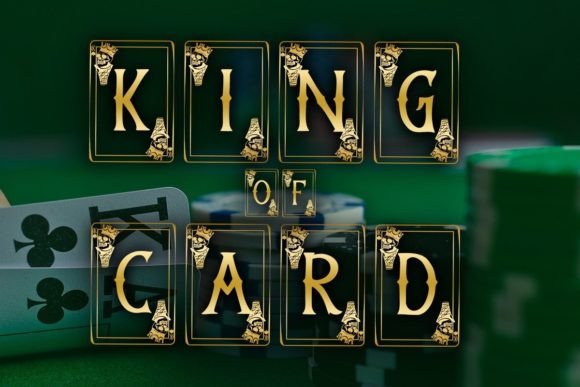
Introducing the King of Card Font: Elevate Your Creative Projects to Royalty
In the realm of typography, few fonts have made a mark as distinct and captivating as the King of Card font. This incredibly unique decorative font has been turning heads and transforming creative projects into authentic pieces of art. If you’re looking to add a touch of royalty to your designs, the King of Card font is an indispensable asset in your creative arsenal.
What Makes King of Card Font Stand Out?
The King of Card font is not just another addition to the vast sea of typefaces. Its uniqueness stems from its intricate design, which combines elegance with a playful edge. Each letter is crafted to resemble a card, complete with detailed illustrations that make it look like you’re dealing with a deck of cards come to life. This distinctive feature makes it perfect for projects that require a dash of whimsy and a lot of character.
• Unique Design: The font’s design is unlike any other, making it a standout choice for creative projects.
• Elegant and Playful: It combines elegance with a playful edge, suitable for a wide range of design needs.
• Detailed Illustrations: Each letter is intricately designed to resemble a card, adding a detailed and high-quality look to your projects.
The Versatility of King of Card Font
One of the most significant advantages of the King of Card font is its versatility. While its unique design makes it a natural fit for certain types of projects, it can also be surprisingly adaptable. Here are some of the top uses for this remarkable font:
1. Card Making and Invitations: The obvious use for a font like King of Card is in card making and designing invitations. Whether it’s for a birthday, wedding, or any other occasion, this font adds a touch of class and whimsy.
2. Branding and Logo Design: For businesses looking to stand out, especially those in creative industries, the King of Card font can be a game-changer. Its uniqueness can help a brand leave a lasting impression.
3. Graphic Design Projects: From posters and flyers to brochures and banners, the King of Card font can elevate any graphic design project. Its detailed illustrations add depth and interest to any layout.
4. Digital Content: In the digital realm, the King of Card font can be used in video titles, social media posts, and website headers. Anywhere you want to make a statement, this font can help.
Tips for Using King of Card Font Effectively
While the King of Card font is undoubtedly eye-catching, it can be challenging to use effectively. Here are some tips to ensure you get the most out of this unique font:
• Pair it Wisely: Because of its intricate design, the King of Card font works best when paired with simpler fonts. This contrast ensures that your message remains clear while still showcasing the font’s unique qualities.
• Consider the Context: Think about where and how your design will be used. For instance, a more formal event might call for a more restrained use of the font, while a children’s party invitation could fully showcase its playful side.
• Don’t Overuse: While it’s tempting to use the King of Card font for everything, overuse can dilute its impact. Use it sparingly to highlight key information or to add a decorative touch.
The Impact of King of Card Font on Design
The King of Card font doesn’t just add words to a page; it transforms the entire design experience. Its impact can be seen in several areas:
1. Aesthetic Appeal: The font’s detailed and artistic design elements immediately draw the eye and add aesthetic appeal to any project.
2. Emotional Connection: The whimsical nature of the font can create an emotional connection with viewers, making designs more memorable.
3. Professionalism: Despite its playful nature, when used correctly, the King of Card font can also add a level of sophistication and professionalism to designs.
The King of Card font is more than just a decorative typeface; it’s a tool for transformation. It can turn a simple project into a statement piece, making it an invaluable resource for designers and creatives. Its unique blend of elegance and playfulness, combined with its versatility, makes it suitable for a wide range of applications. Whether you’re designing a card, a logo, or a digital project, the King of Card font can help you create something truly special.
So, if you’re looking to elevate your creative projects and make them stand out in a crowd, consider adding the King of Card font to your toolkit. Its ability to transform your ideas into authentic pieces of art is unmatched, and its impact is sure to leave a lasting impression on your audience.